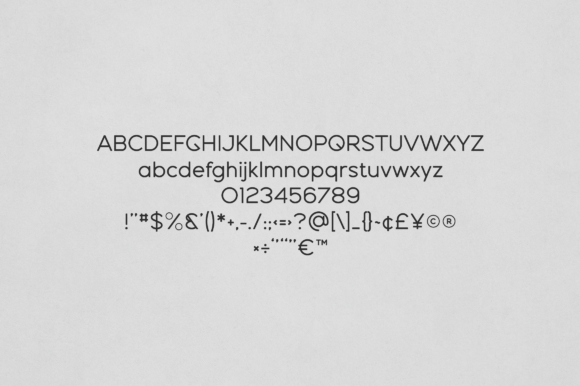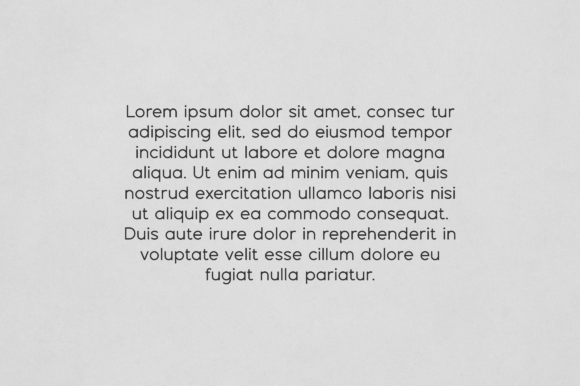
The Forest Font: A Designer’s Dream Come True
I’ll never forget the time I was working on a branding project for a new eco-friendly home goods company. I had spent hours pouring over design concepts, but something was missing – the perfect font. That’s when I stumbled upon Forest, an elegant and versatile sans serif font that instantly elevated my design. If you’re a designer, crafter, or creative hobbyist looking for a font that will make your typography truly unique, you’re in luck! In this article, we’ll dive into the world of Forest Font and explore its features, uses, and alternatives.
A Personal Review: What I Love About Forest Font
So, what makes Forest Font so special? Here are a few things that I love:
- ✨ Elegant and Versatile: Forest Font is perfect for a wide range of design projects, from logos and branding to headlines and plain text.
- ✅ Highly Legible: The font’s clean lines and simple shapes make it easy to read, even at small sizes.
- 💡 OpenType Features: Forest Font comes with a range of OpenType features, including glyphs and stylistic alternates, that allow for endless customization.
While Forest Font is an amazing font, there are a few small quirks to be aware of:
- 🤔 Limited Contrast: Forest Font has a relatively low contrast between light and heavy weights, which can make it difficult to use in certain design contexts.
- ⚠️ Glyph Limitations: While Forest Font comes with a range of glyphs, it may not have every special character or symbol you need.
The Story Behind Forest Font
Forest Font was designed by a team of typographers who wanted to create a font that was both elegant and versatile. Inspired by the natural world, Forest Font features clean lines, simple shapes, and a range of OpenType features that make it perfect for a wide range of design projects.
| Font Name | Forest Font |
| Author | vladfedotovv |
| What is Forest Font? | Forest Font is an elegant and versatile sans serif font that’s perfect for a wide range of design projects. |
| What design projects is Forest Font best suited for? | Forest Font is perfect for branding projects, home-ware designs, product packaging, magazine headers, and more. |
| Is Forest Font easy to read? | Yes, Forest Font is highly legible, even at small sizes, making it perfect for body text and headlines. |